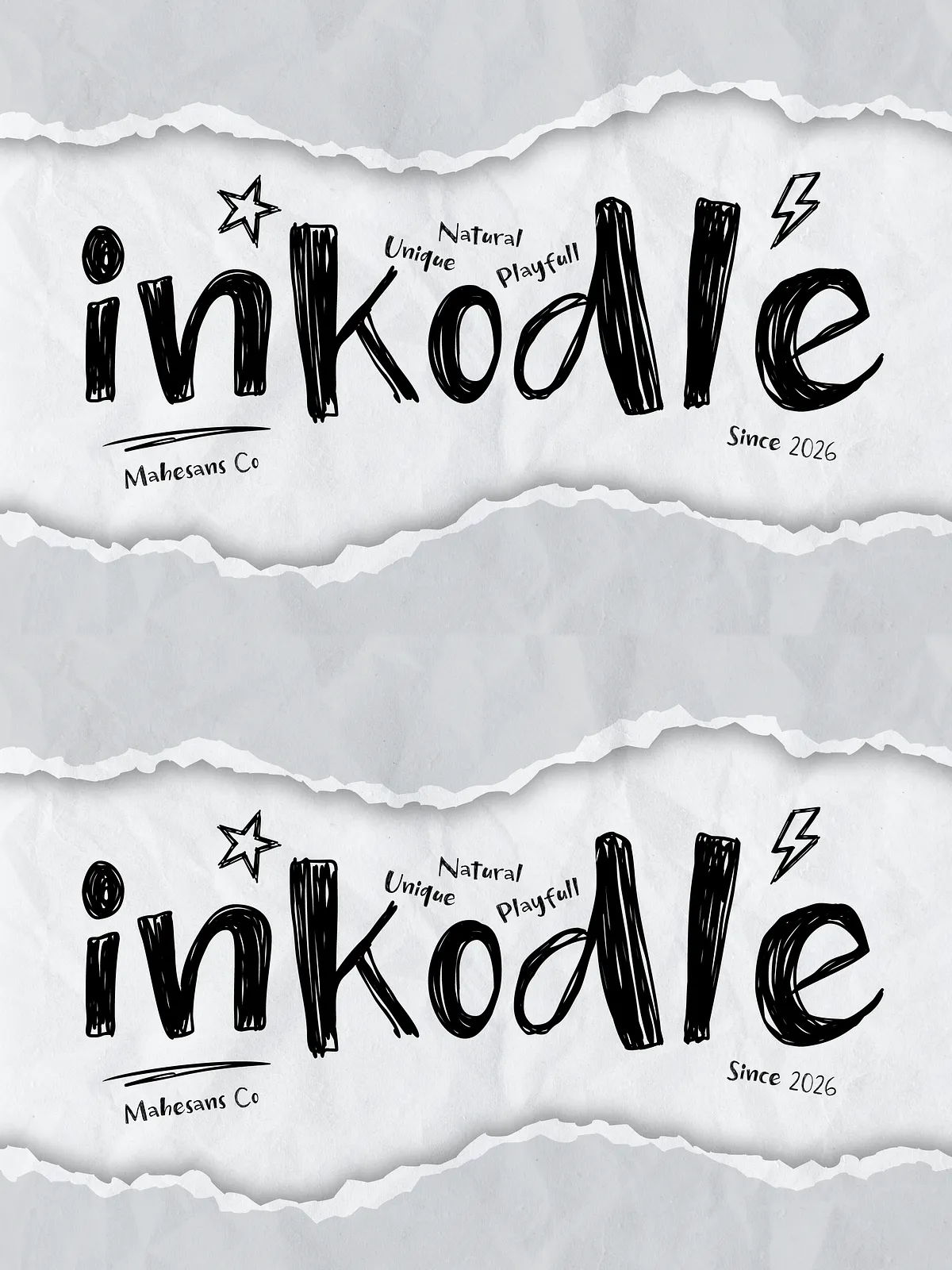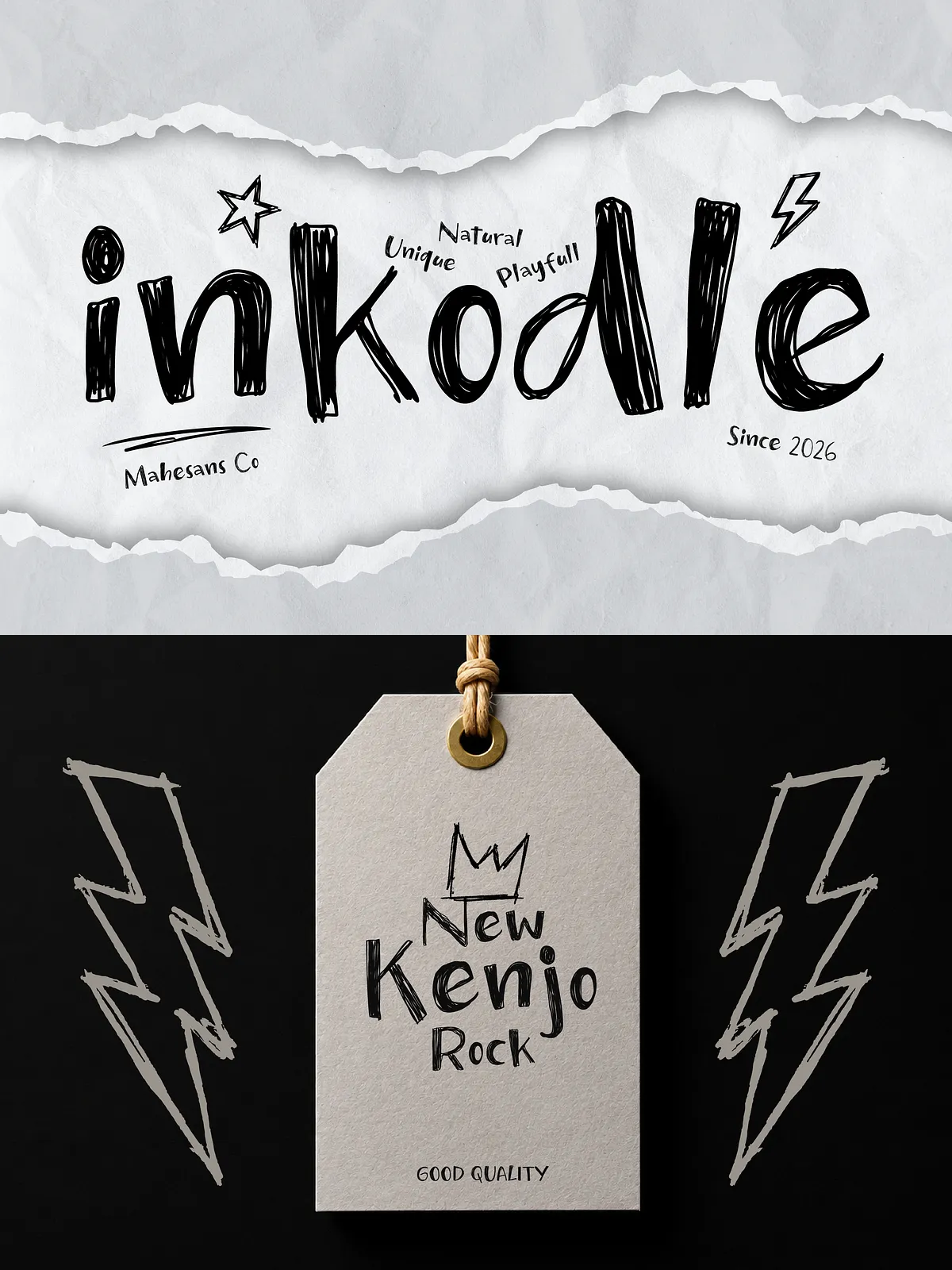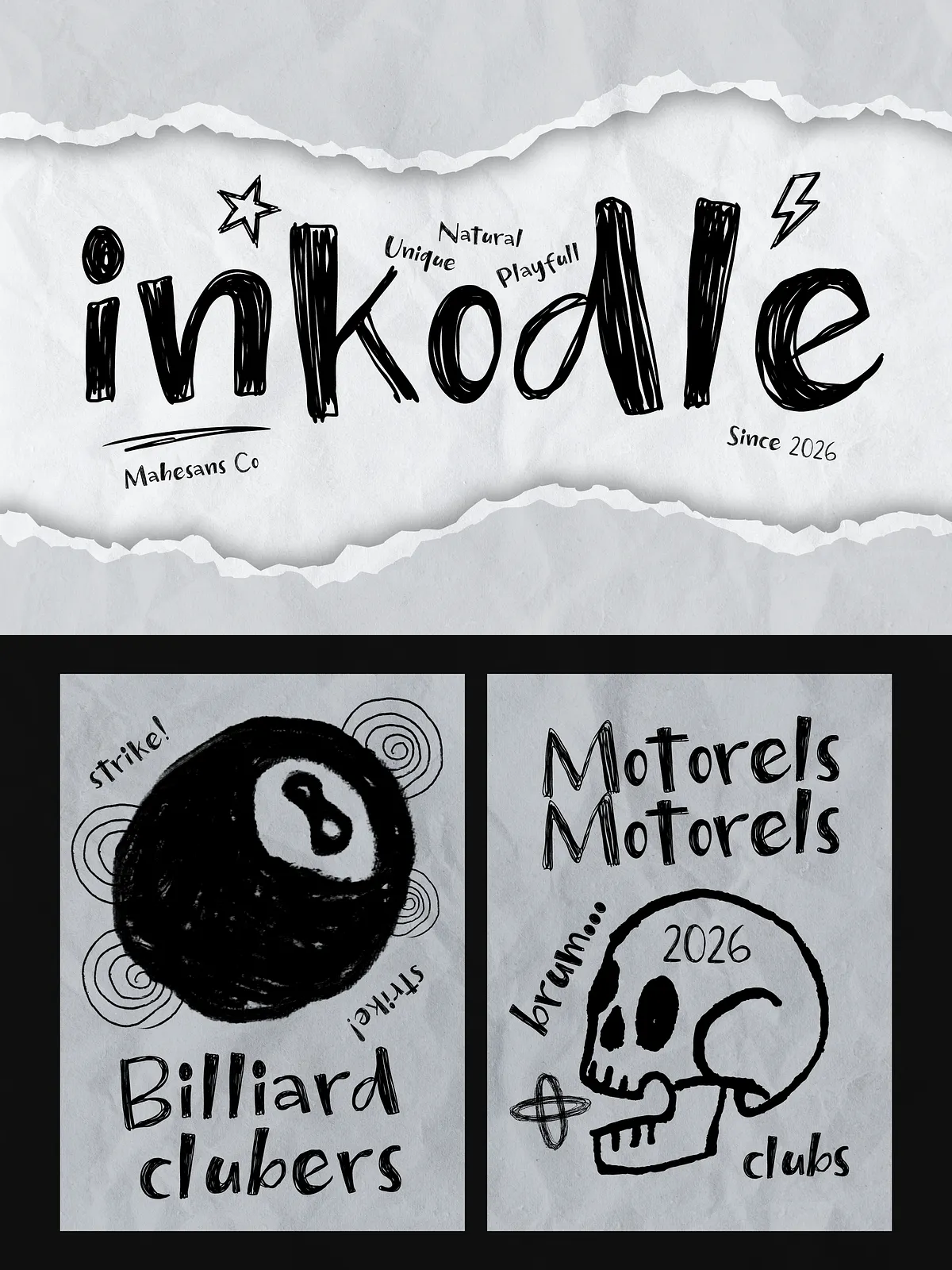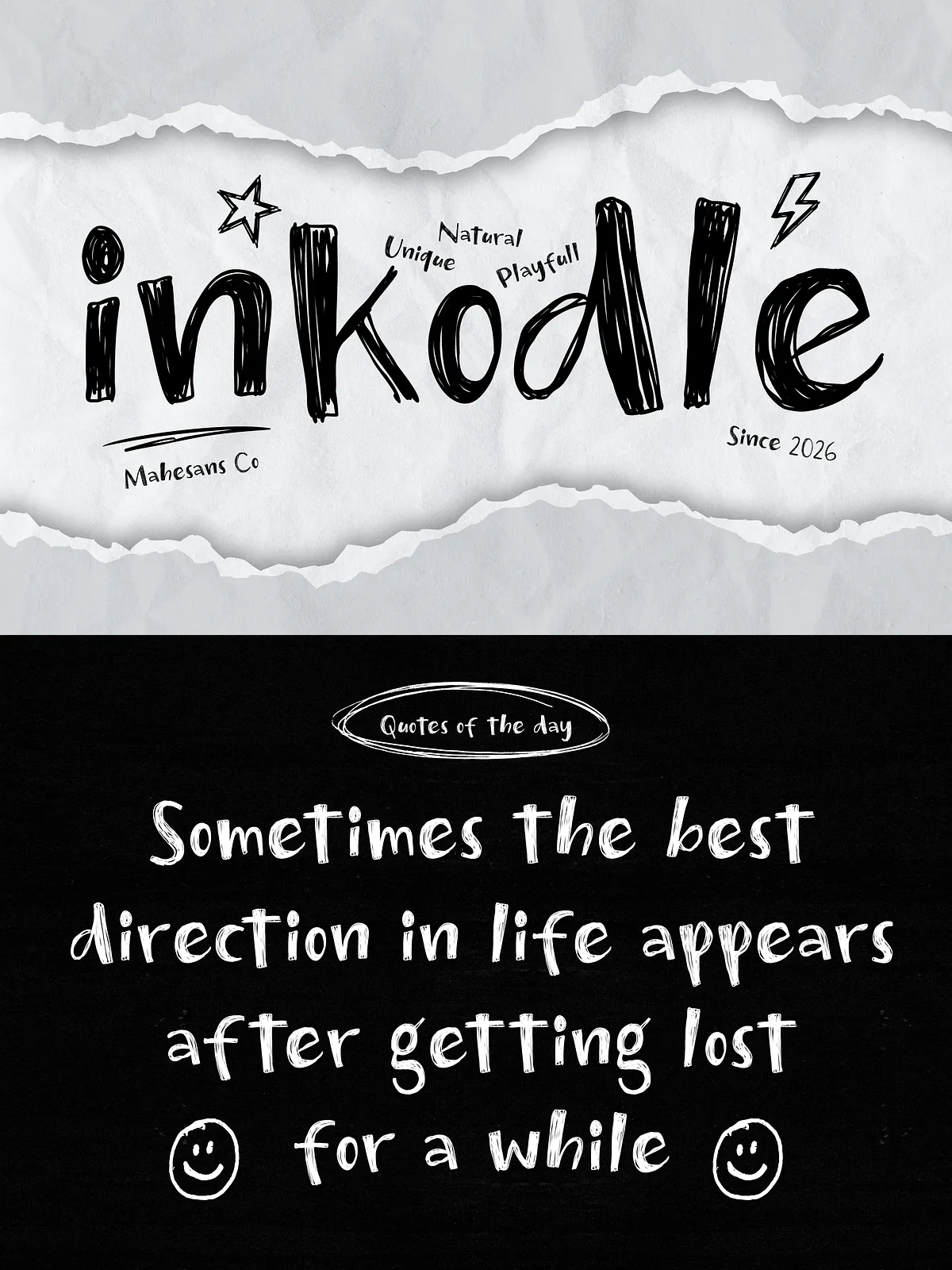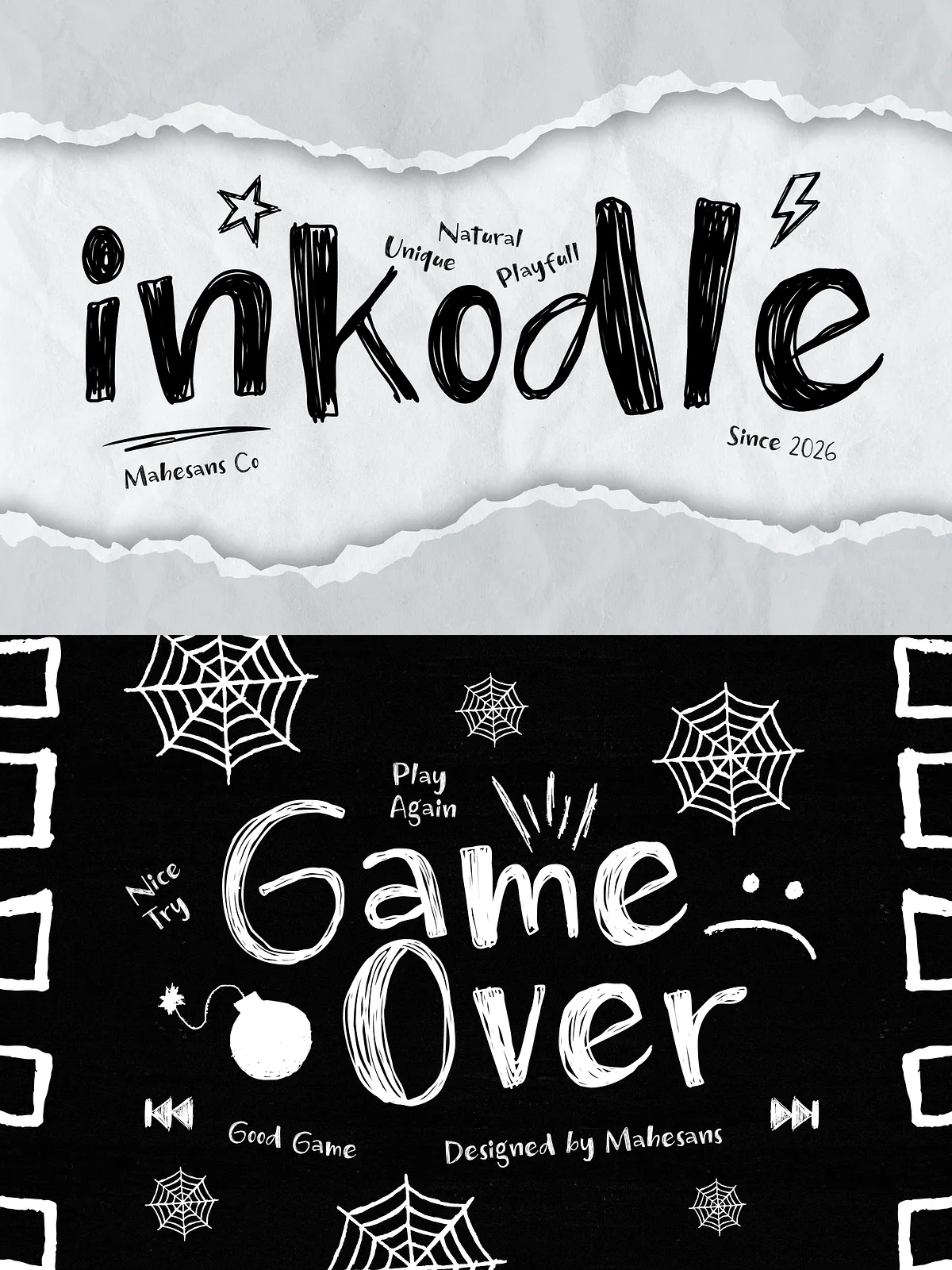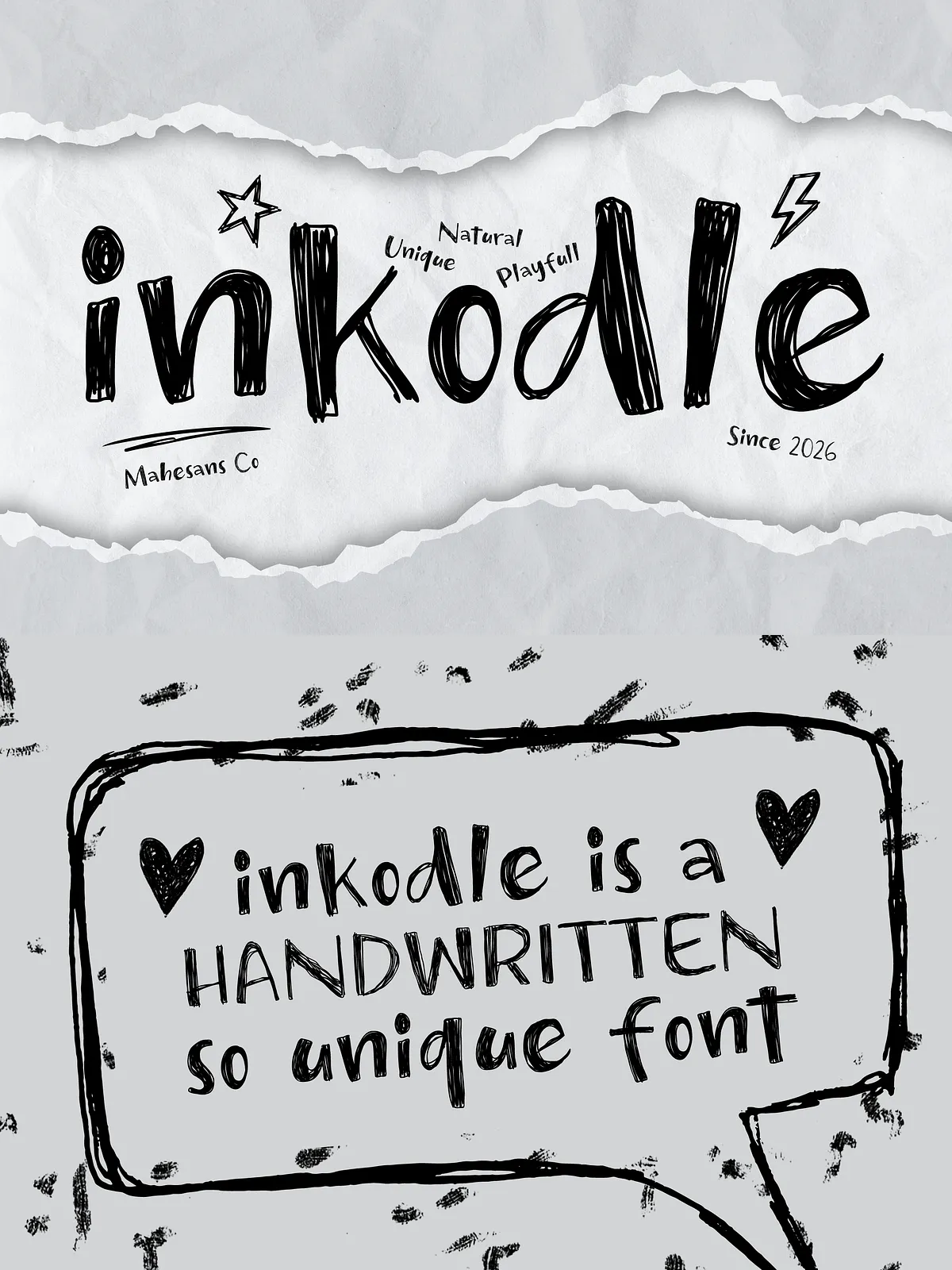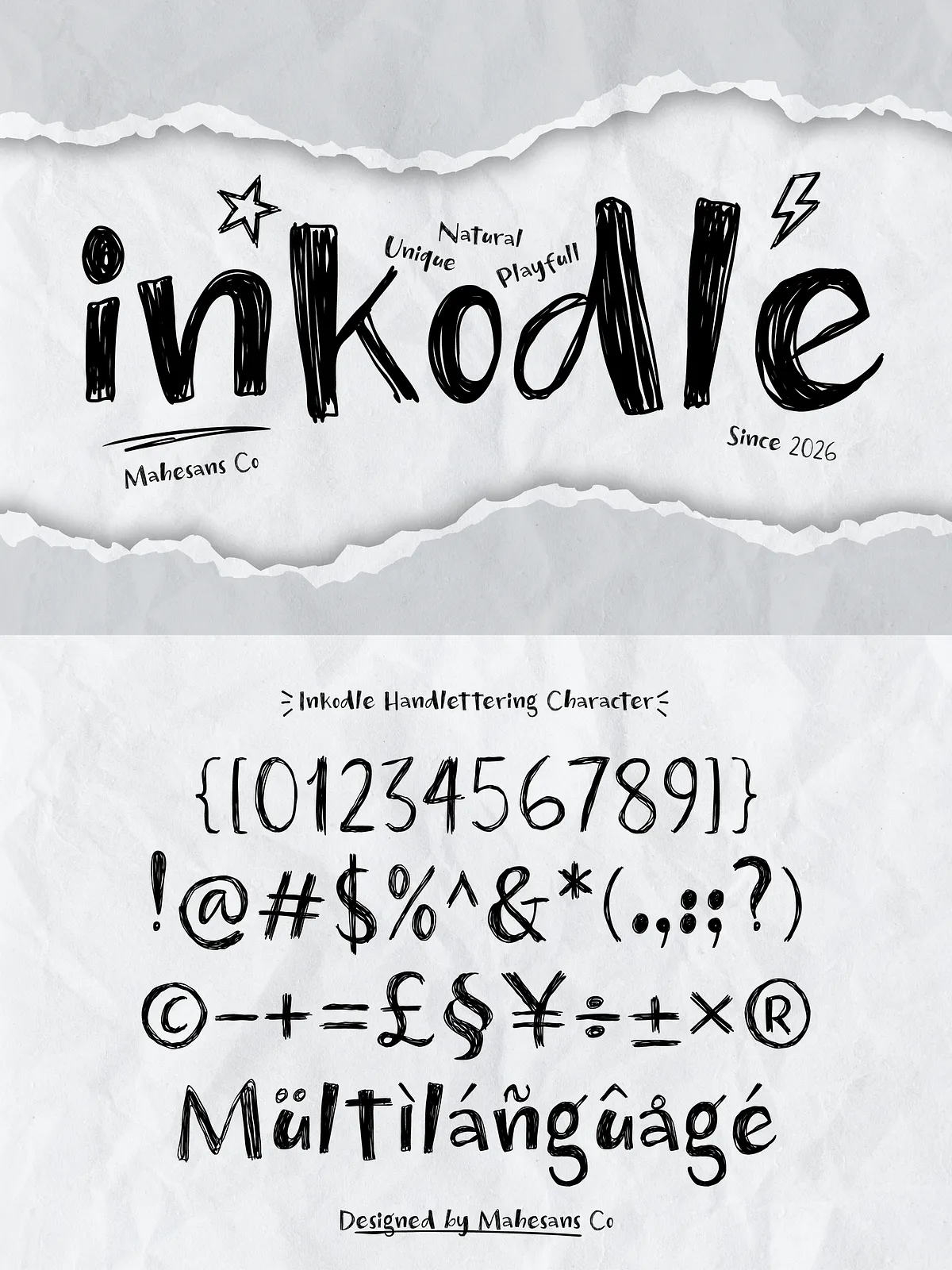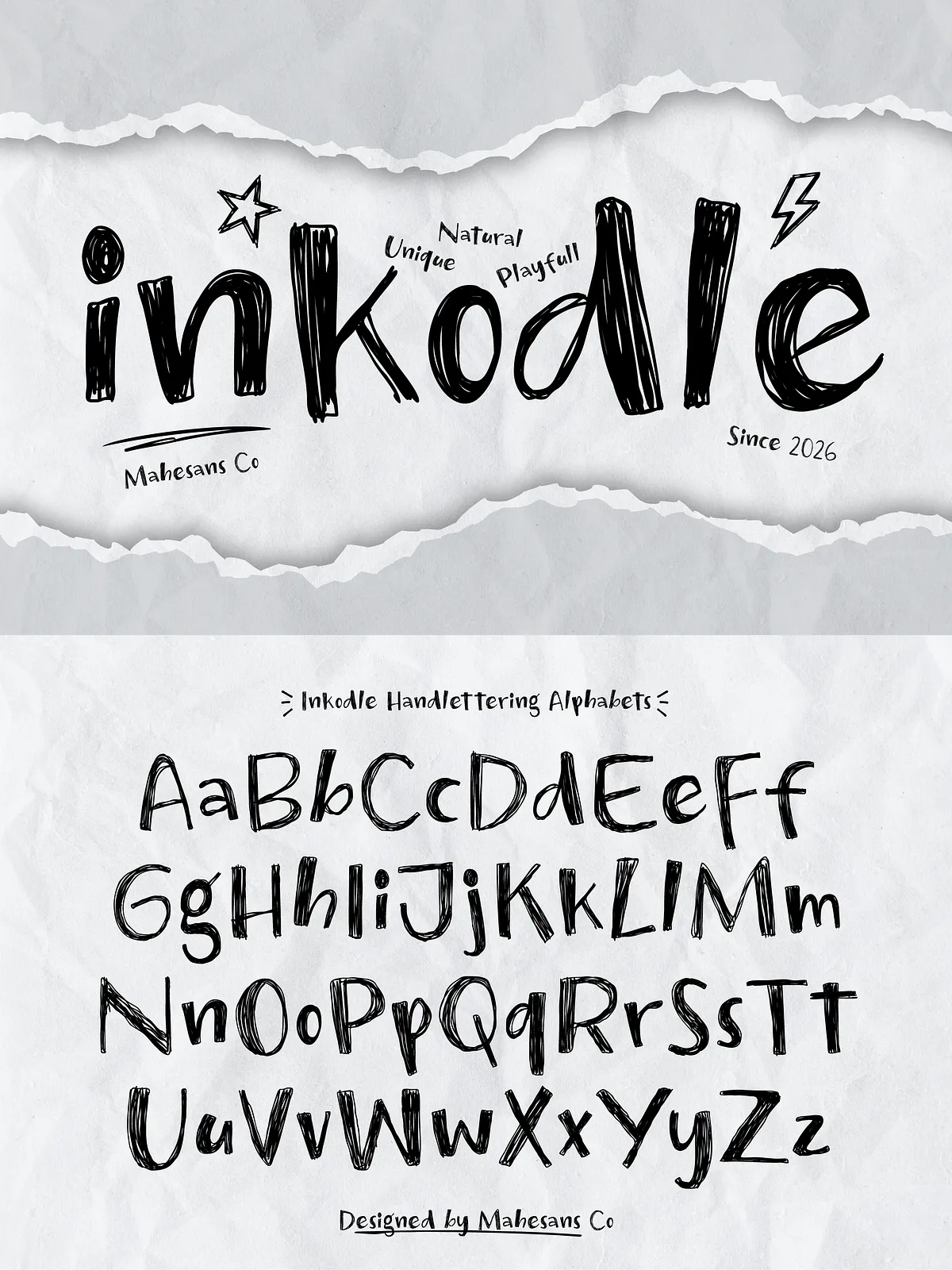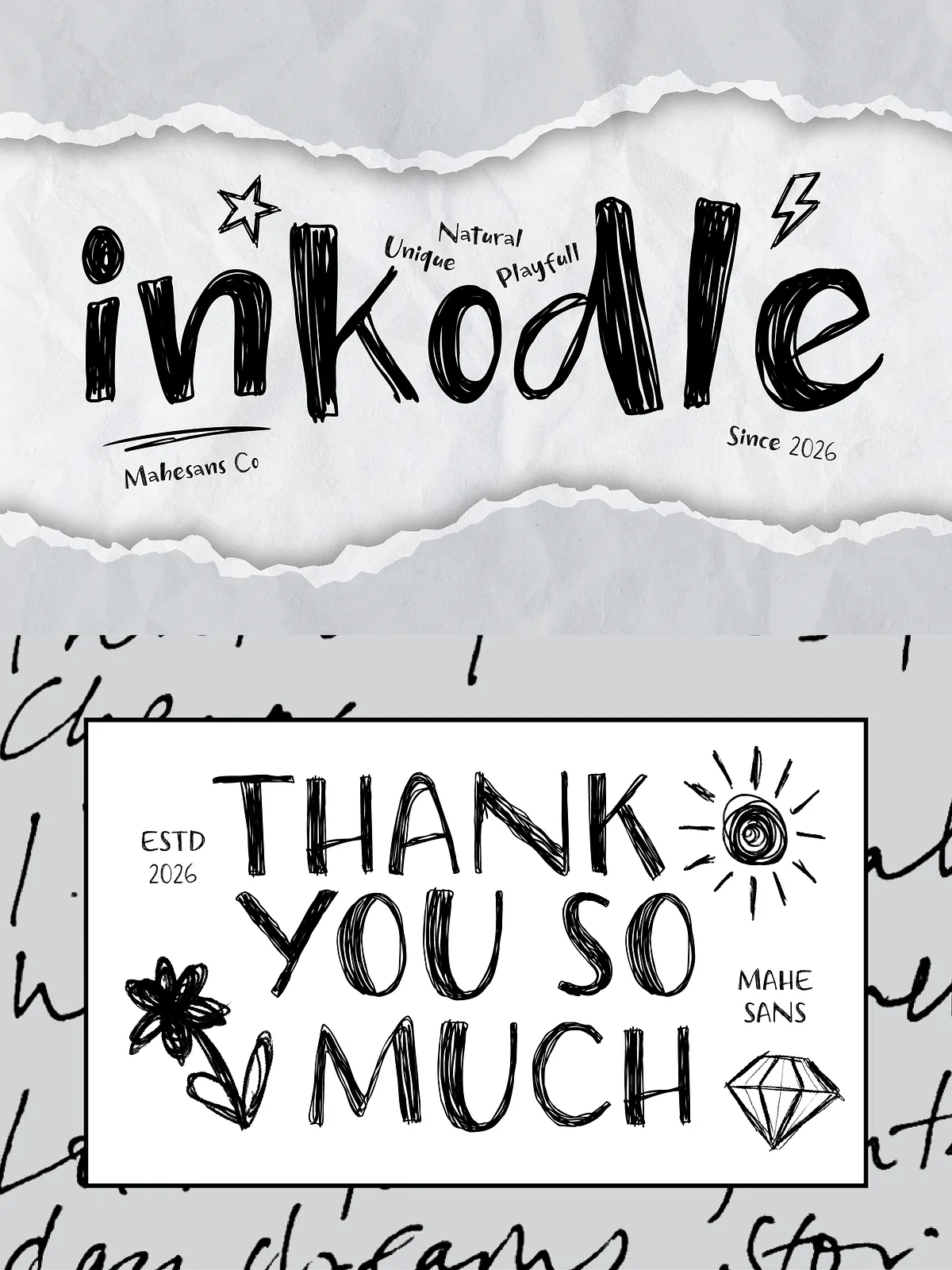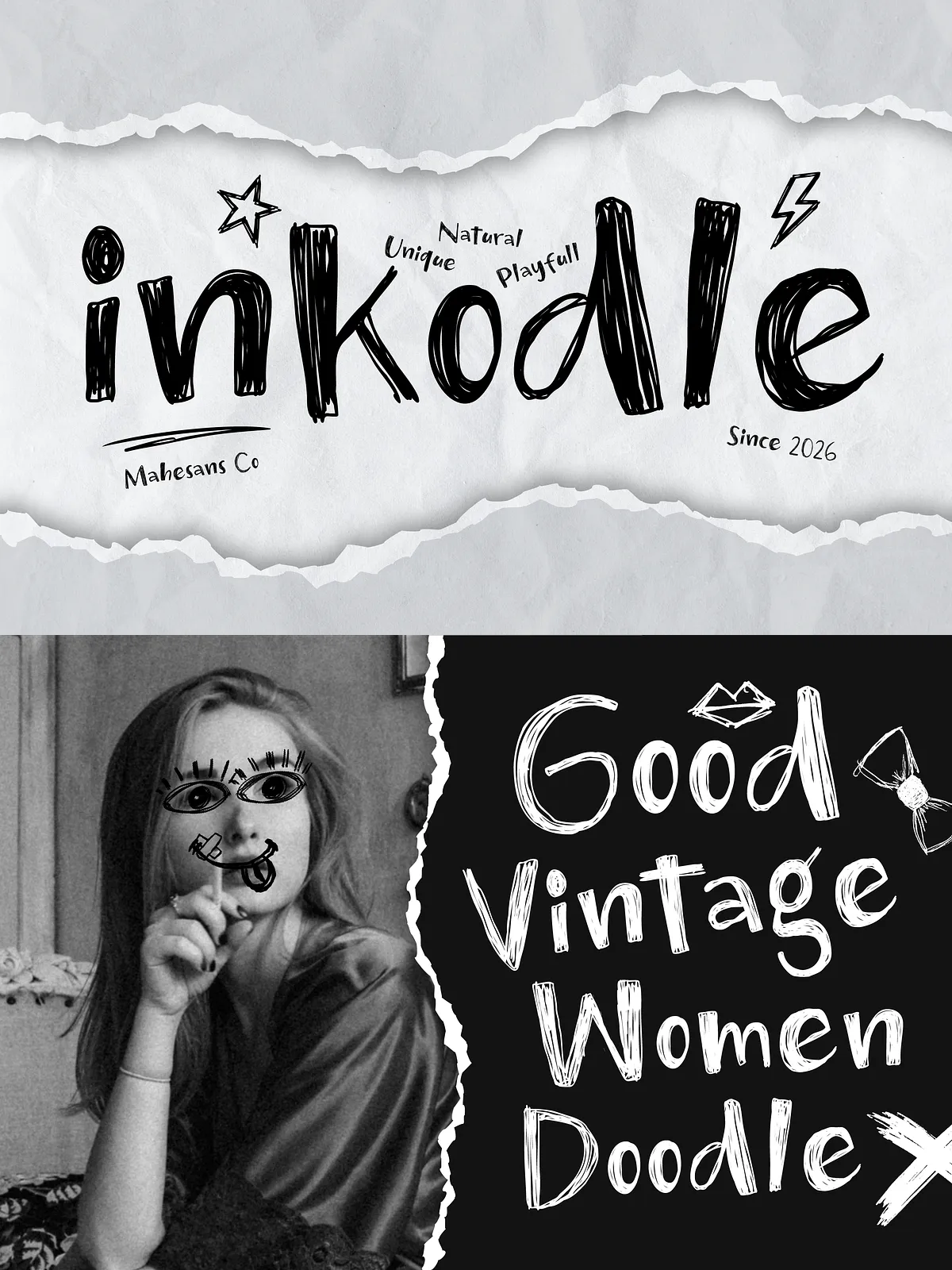
Inkodle – Messy Handwritten Font
Inkodle captures the energy of spontaneous sketchbook notes and the charm of imperfect marker strokes. Each glyph reads as hand-drawn, textured, and full of personality. The typeface emphasizes natural irregularities—uneven terminals, subtle ink textures, and lively baselines—so your designs feel human, expressive, and instantly approachable. Inkodle performs as a friendly headline voice and as a distinctive accent for branding and packaging, where authenticity matters most.
What Makes Inkodle Different
Rather than smoothing away quirks, Inkodle celebrates them. The font preserves organic stroke endings, uneven letter widths, and playful alternates that mimic real handwriting. These deliberate imperfections help your layouts convey warmth and spontaneity without sacrificing legibility. Designers will find Inkodle especially effective where a casual, handcrafted tone enhances the message—children’s materials, craft packaging, and social-first visuals.
Glyph Coverage
The family ships with full uppercase and lowercase alphabets, numerals, common punctuation, essential symbols, and selected alternates to add expressive variation. The font supports multiple languages using Latin script and includes key diacritics for broader international use.
Primary Uses
Best Applications
• Children’s branding and book covers — create playful titles and friendly logotypes.
• Posters, flyers, and event art — grab attention with bold, hand-drawn headlines.
• Packaging for handmade or youth-focused products — communicate craft and personality.
• Stickers, apparel, and merchandise — translate the doodle aesthetic into physical goods.
• Social media graphics and short-form advertising — stand out with immediate, human-first voice.
Design & Pairing Tips
Styling and Pairing
Pair Inkodle with clean, neutral sans-serifs or soft humanist serifs to anchor layouts. Use increased letter-spacing for multi-word headlines to avoid collisions between playful strokes. Layer the font over solid shapes or subtle textures to amplify the handmade vibe while preserving contrast. Employ alternates selectively to keep typographic rhythm fresh and authentic across repeated phrases.